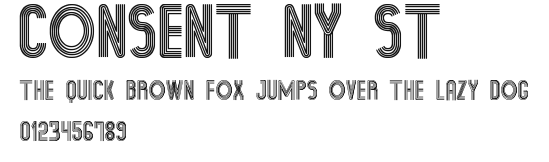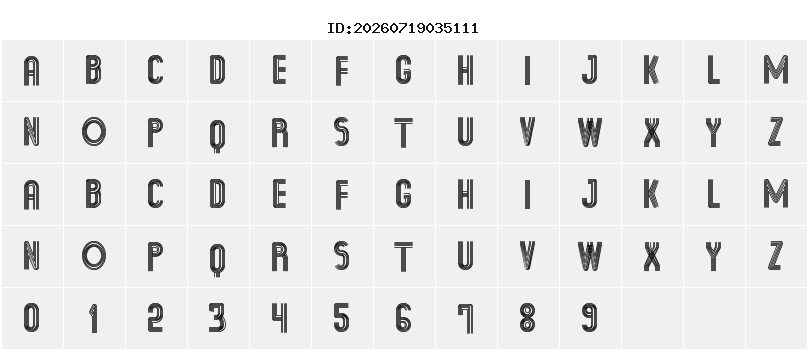
• Font Name: Consent Ny St
• Designer: This font is an original work of southype dot com
About Consent Ny St.ttf
Consent Ny St.ttf is a modern, elegant sans-serif font designed for ultimate readability and visual harmony. Perfect for branding, headlines, web design, and print materials.